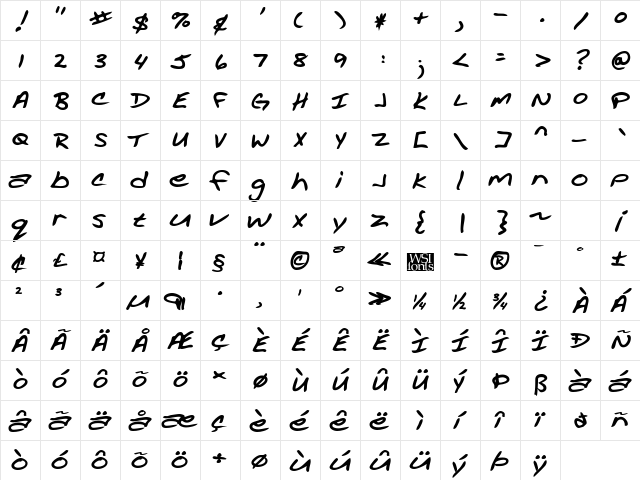
AcaciasHand Bold Font Preview
AcaciasHand Bold
AcaciasHand Bold Font Details
Design Context for AcaciasHand Typeface
AcaciasHand flows with the natural rhythm of handwritten lettering, making it ideal for designs that call for warmth and personal expression. Its bold stroke weight gives it real presence on the page.
Font Pairing: Combine AcaciasHand with a simple geometric sans for maximum contrast — the tension between flowing curves and clean structure is a classic typographic pairing.
Pro Tip: Use AcaciasHand for short runs of text — names, titles, or taglines. Extended body copy in script faces tires the eye quickly.